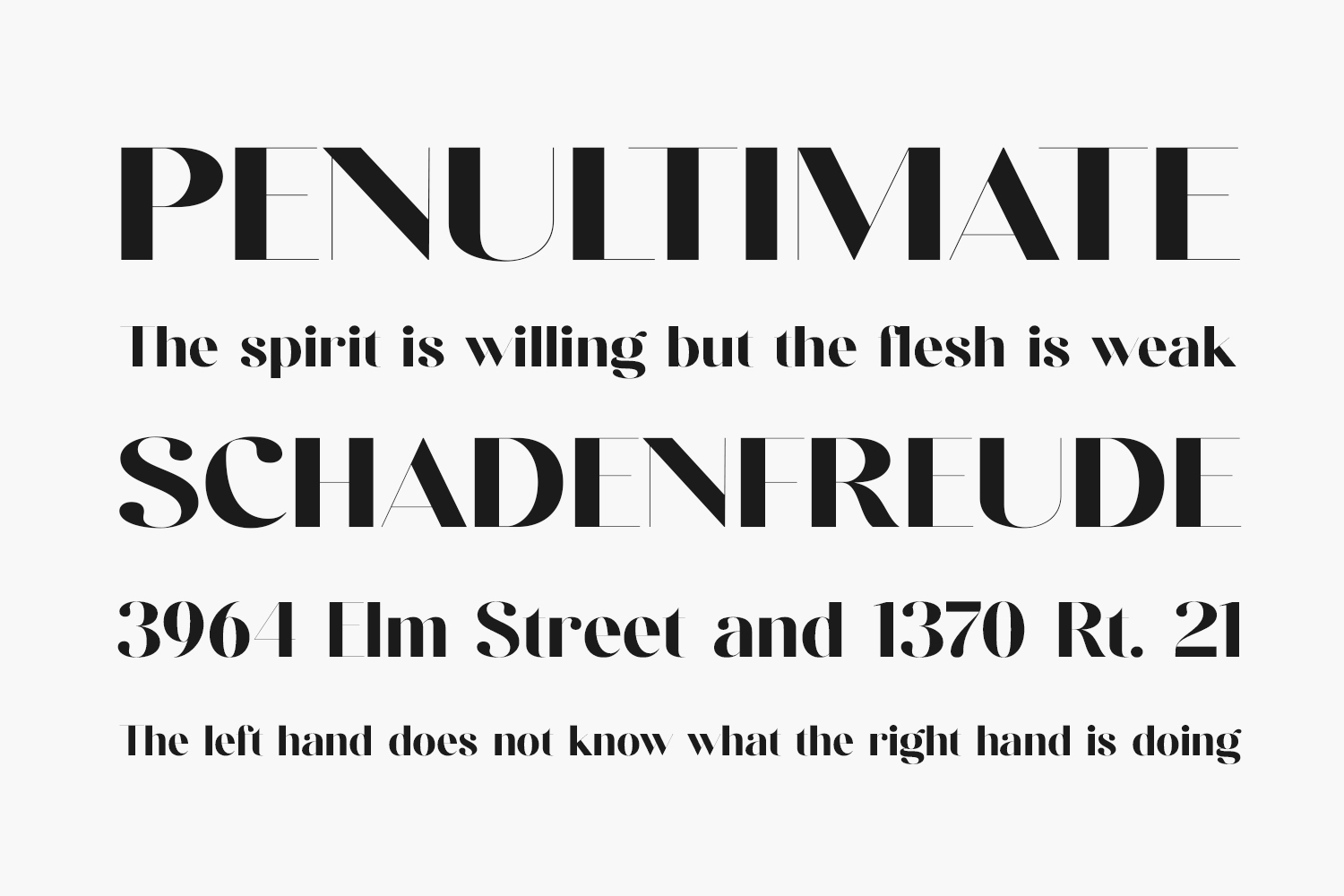
Introducing Cabinest Free Font, a sophisticated and contemporary sans-serif font that excels as a choice for headings, logos, branding, magazines, product packaging, and invitations. Its sleek lines and fluid curves infuse every project with a heightened sense of refinement, making Cabinest the epitome of elegance. Cabinest Free Font is free for personal use only. Please purchase the full version for commercial use.